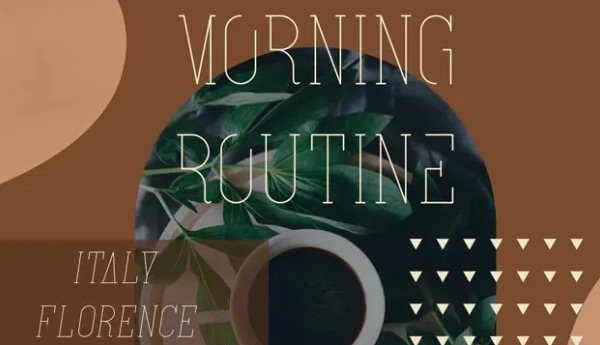
About Italian font. This is a great modern Slab Serif font that was designed by 2 talented designers, Plamen Petrov and Vladimir Fedotov. And it was published by VP Creative Shop in June 2021. This Italian font includes 24 unique gorgeous styles.
If you care about this Slab font, you can see that it is a clean and long font. It consists of 15 elements in 4 premade colors and eight compositions that make the Italian font very delicate and dynamic. Besides, it’s very readable in both small and large sizes.
Using this Italian font
Italian font is stunning in many types of project such as magazine headers, home-ware designs, branding projects, product packaging, and more.
This is a font with many ingenious and sophisticated strokes. Combined with your creative will create individual personalities for each design product in the future.
Italian Slab Serif font
- Regular
- Light
- Bold
- Medium
- 3 gorgeous styles
- Italics
- Upper & lower case letters, marks and ligatures
- Advanced OpenType features